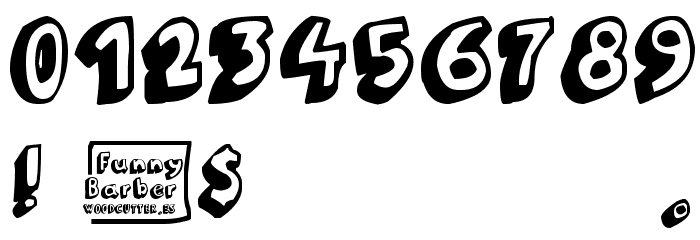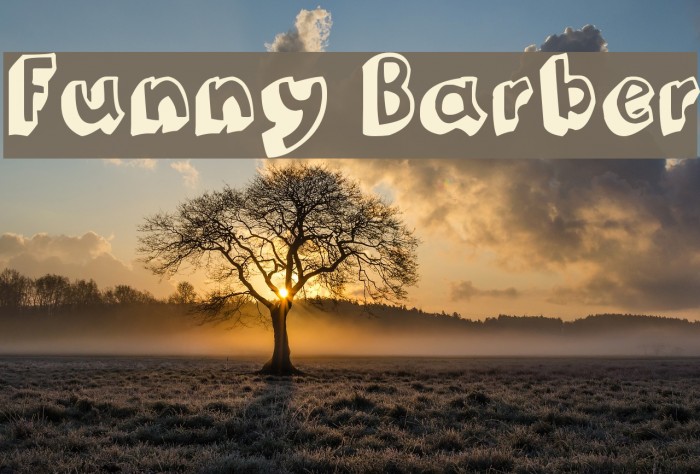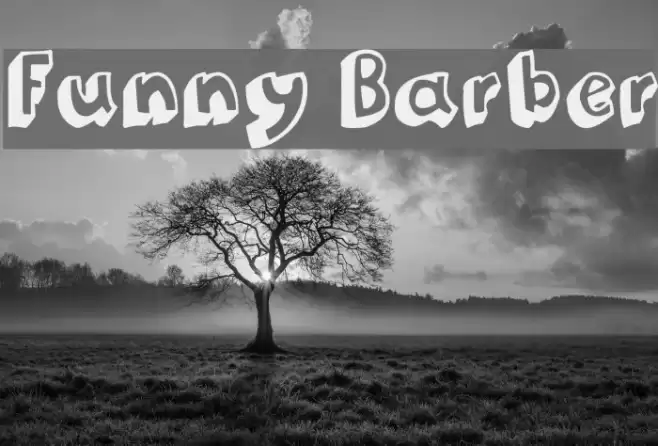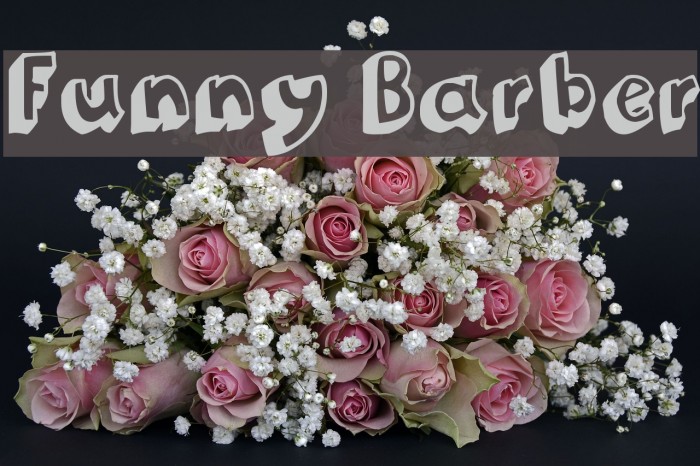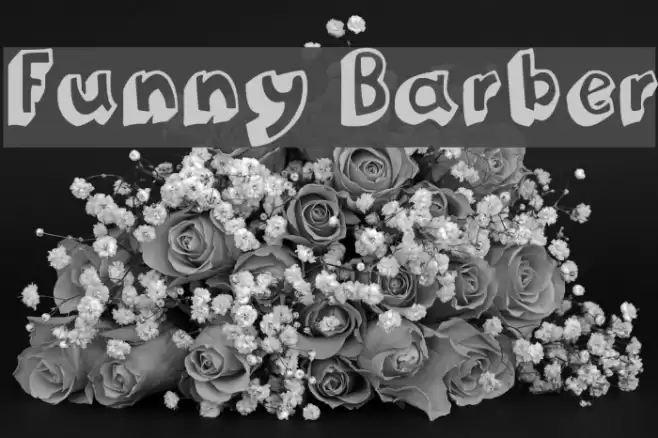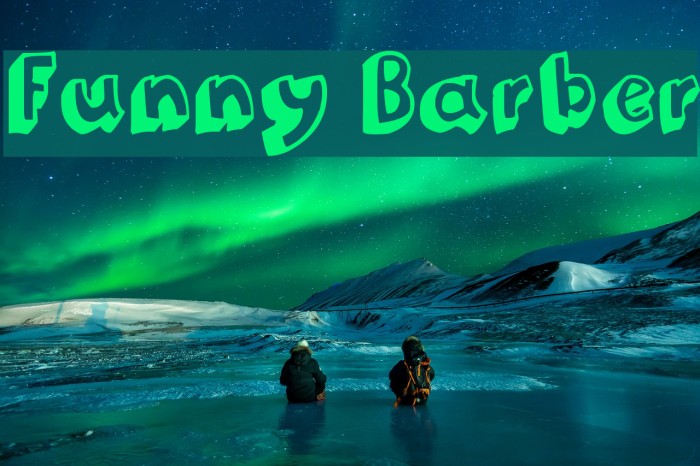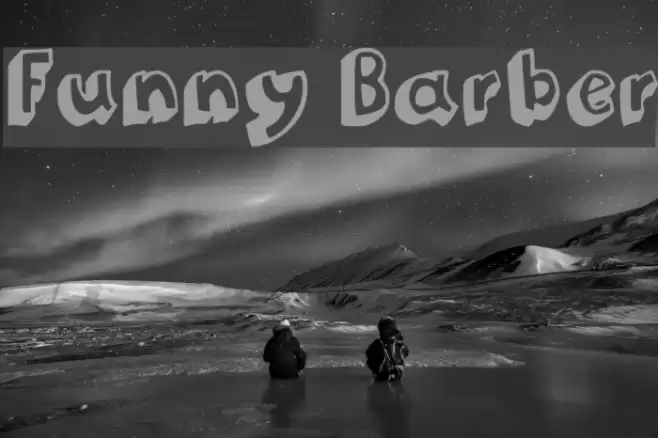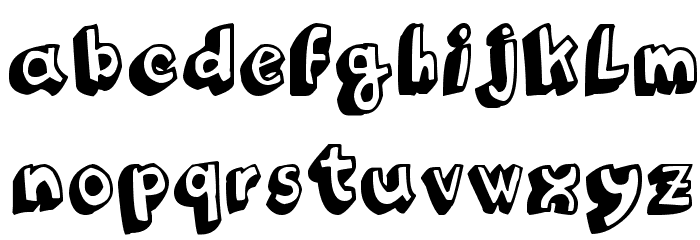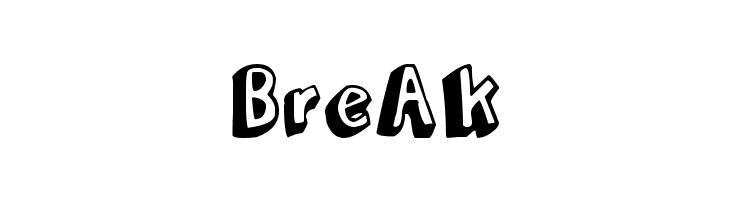
Funny Barber Font
This playful and bold font features a unique, cartoonish style with exaggerated curves and angles. Each character is designed with a thick outline and a shadow effect, giving it a three-dimensional appearance. The uppercase letters are particularly striking, with a whimsical flair that makes them stand out. The lowercase letters maintain the same playful aesthetic, ensuring consistency throughout. Numbers and special characters are equally bold and dynamic, adding to the font's overall lively and fun vibe. This font is perfect for projects that require a touch of humor and creativity.
Overall StylePlayful, Cartoonish, Fun
Proposed ProjectsIdeal for children's books, comic strips, playful branding, and eye-catching posters.